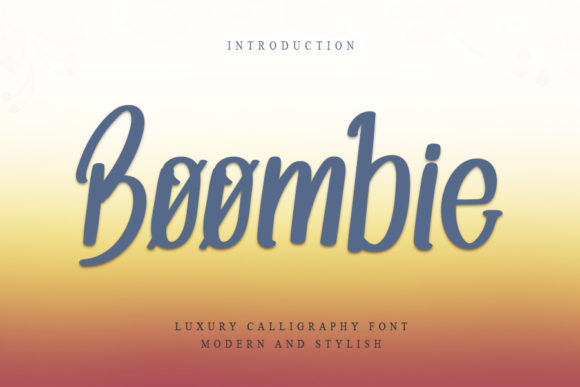
Prepare yourself to leave an indelible mark with Boombie Font, a masterpiece crafted by the visionary designers at FreshTypeINK. A font of unrivaled elegance and refinement, Boombie will transform your creations, adding a touch of brilliance to each stroke. As a modern logo, Boombie exudes an unparalleled flair, captivating audiences with its inherent sophistication.
With Boombie, you hold the key to unlock endless possibilities. Let your imagination soar as you explore the realm of branding, where logos crafted with Boombie possess a magnetic charm, exuding professionalism and leaving an enduring impression upon your clientele. Boombie's versatility extends far beyond logo design. Unleash your creativity in creating breathtaking wedding invitations, where each letter dances with grace, embodying the essence of romance and elegance. Compose social media posts that radiate exclusivity, leaving your audience spellbound by the visual delight that Boombie brings.
Step into the realm of digital artistry, where Boombie flourishes as the perfect companion for web designs, imbuing them with an aura of sophistication. From personal blogs to corporate websites, Boombie's presence elevates the user experience, leaving a lasting impact that resonates with visitors.
Boombie's versatility knows no bounds. Whether you seek to craft eye-catching posters that demand attention or design business cards that exude an air of authority, Boombie rises to the occasion, fulfilling your every creative desire. Its versatility extends to creating stunning invitations for events, whether formal or casual, adding a touch of allure to every occasion.
As you embark on your creative journey with Boombie, prepare to be enthralled by its effortless flow and captivating rhythm. Each letterform dances upon the page, telling a tale of elegance and refinement. Boombie's hand-crafted charm adds a touch of warmth and personality, making your designs truly unforgettable. Join the creative revolution, let Boombie inspire you, and embark on a journey where your designs captivate and enthrall.